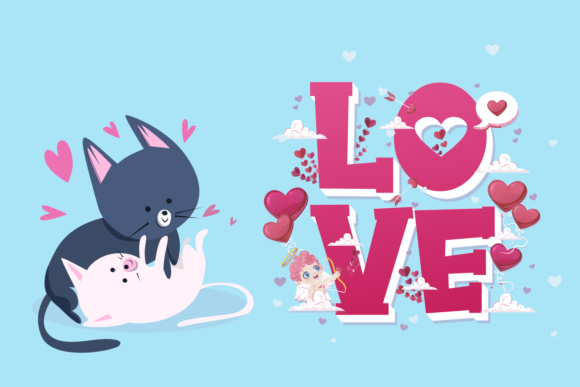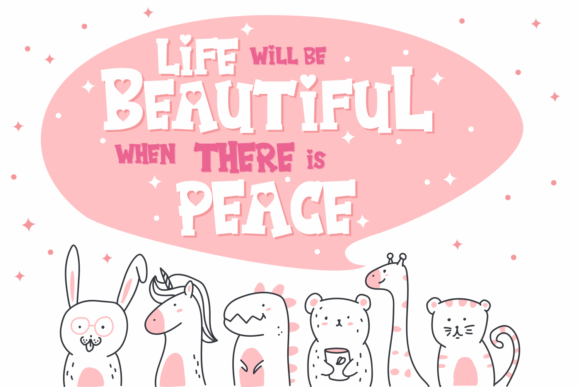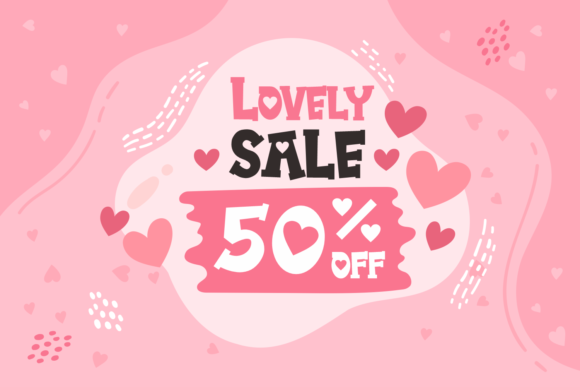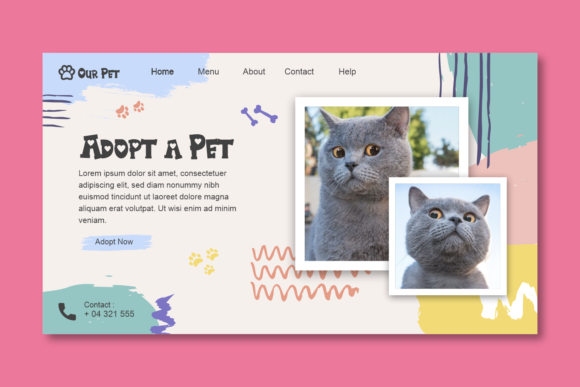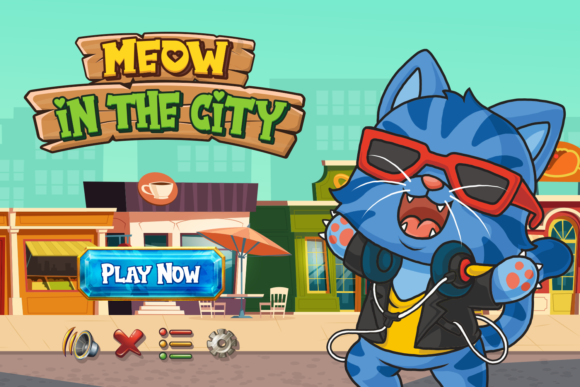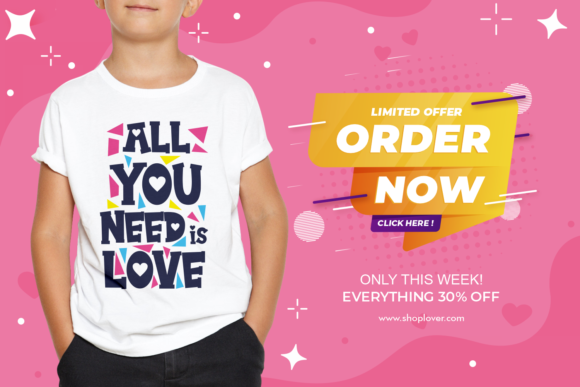
Meow in Love Font – Free Download
Introduction to Meow in Love Font
Meow in Love is a bold and colorful display font.
Its friendly feel makes this font incredibly versatile, fitting a wide range of contexts Add it to your creative ideas and notice how it makes them stand out.
Key Features of Meow in Love Font
Why Choose Meow in Love Font?
Meow in Love Font offers exceptional quality and versatility, making it a valuable addition to your design toolkit. Whether you’re creating for personal projects or commercial use, Meow in Love Font delivers professional results.